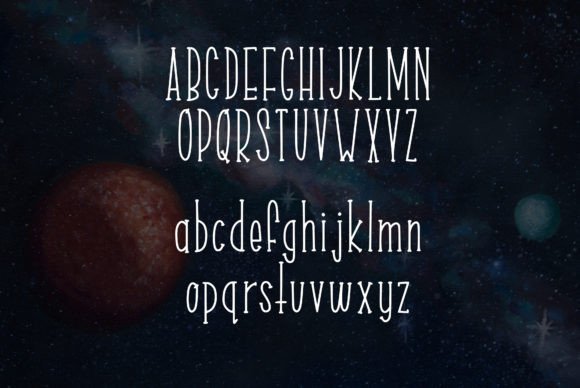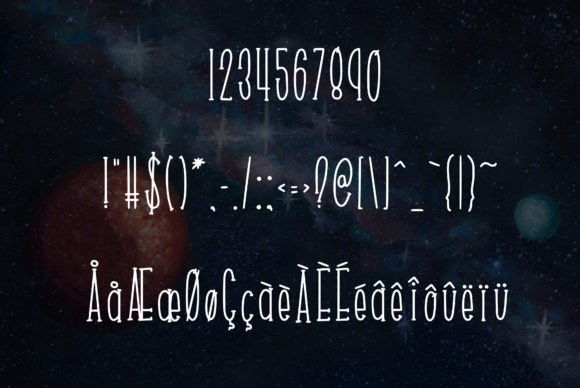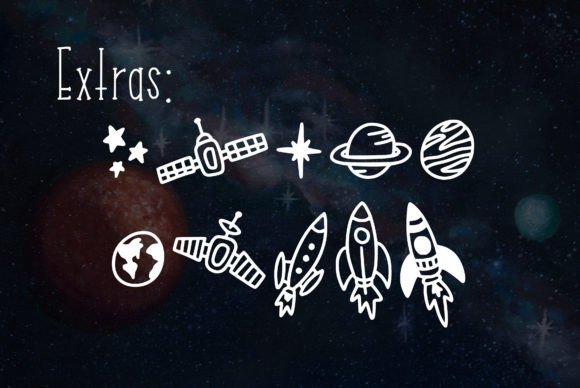
Introducing Blast! Font: Elevate Your Designs with a Cosmic Twist
Are you ready to take your designs to new heights? Look no further than Blast! Font, a playful and adventurous typeface that’s out of this world. With its tall, quirky letters and space-inspired vibe, Blast! is the perfect addition to any project that needs a bold and imaginative touch.
The Perfect Font for Space-Themed Projects
Blast! Font is specifically designed to capture the excitement and curiosity of space exploration. Its unique letterforms are reminiscent of asteroid trajectories, planetary orbits, and the infinite possibilities of the cosmos. Whether you’re designing invitations for a space-themed party, creating educational materials for kids, or simply want to add a touch of fun to your project, Blast! Font is the perfect choice.
Key Features of Blast! Font
- Tall and Quirky Letters: Blast! Font features letters that are tall and quirky, adding a playful touch to any design.
- Space-Inspired Vibe: The font’s space-inspired vibe makes it perfect for projects that need a bold and imaginative touch.
- Easy to Read: Despite its playful nature, Blast! Font is easy to read, making it perfect for use in a variety of projects, from titles and headings to body text.
- Highly Versatile: Blast! Font can be used in a range of projects, from digital designs to print materials, and is suitable for use by designers, crafters, and DIY enthusiasts.
Why Designers and Crafters Love Blast! Font
Blast! Font is a game-changer for designers and crafters who want to add a touch of fun and whimsy to their projects. Here are just a few reasons why:
- Unique and Eye-Catching: Blast! Font is a one-of-a-kind typeface that’s sure to grab attention and make your designs stand out.
- Inspires Creativity: The playful and adventurous nature of Blast! Font is sure to inspire creativity and spark new ideas.
Ideas for Using Blast! Font
Blast! Font is a versatile typeface that can be used in a range of projects. Here are just a few ideas to get you started:
- Space-Themed Party Invitations: Use Blast! Font to create invitations that are out of this world.
- Kids’ Projects: Blast! Font is perfect for kids’ projects, from homework assignments to craft projects.
- Digital Designs: Use Blast! Font to add a touch of fun and whimsy to your digital designs, from social media graphics to website headers.
- Print Materials: Blast! Font is also suitable for use in print materials, from brochures to posters.
Blast! Font is a unique and exciting typeface that’s ready to take your designs to new heights. With its playful and adventurous nature, space-inspired vibe, and highly versatile design, Blast! Font is the perfect addition to any project that needs a bold and imaginative touch. So why wait? Download Blast! Font today and get ready to explore new creative galaxies!